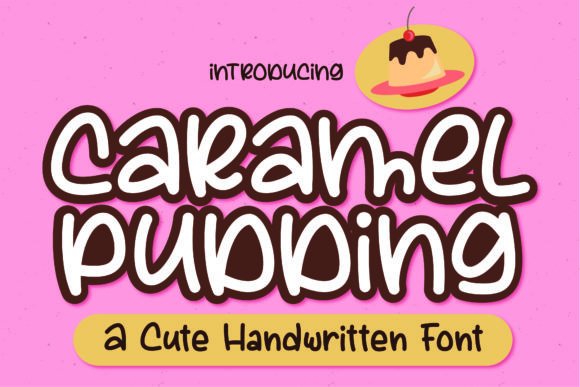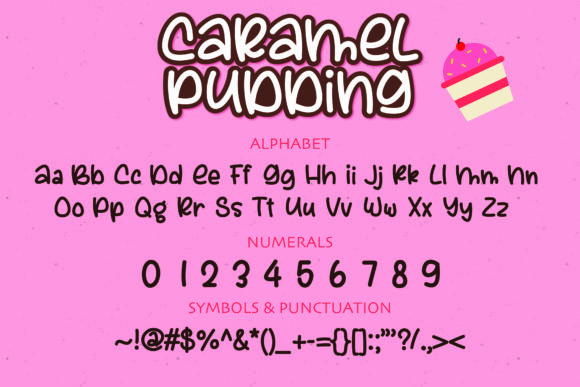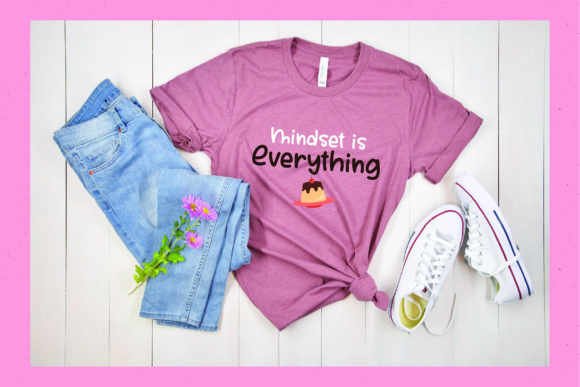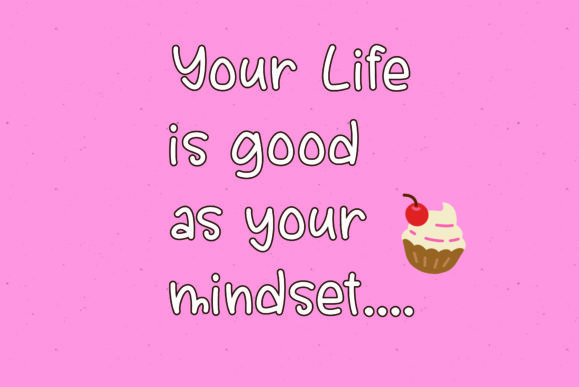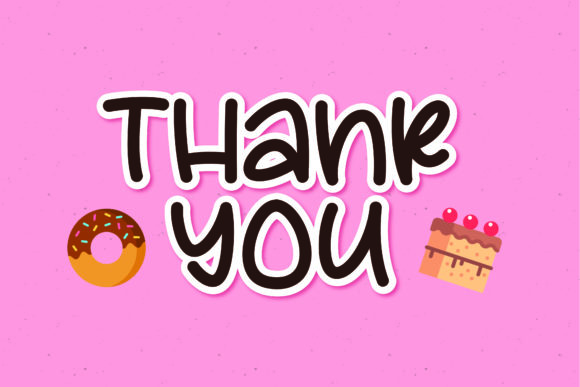
Caramel Pudding Font
About Caramel Pudding Font
Caramel Pudding is a cute and quirky handwritten font. Dainty and joyful, this font will be ideal for writing wedding invitations, cards or any other design that may need a romantic, personalized touch!